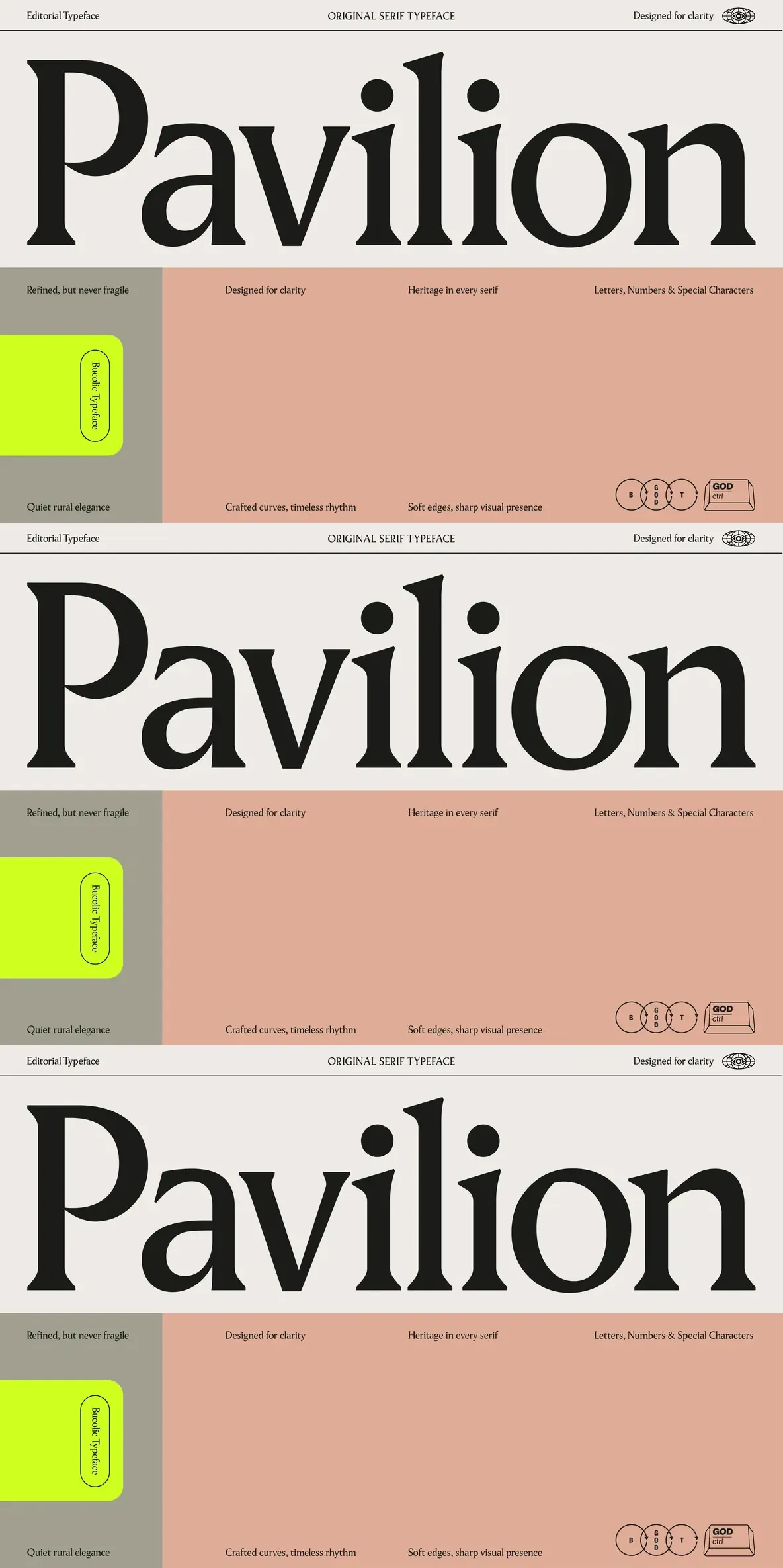
Pavilion: Serif poise for modern pages
Designed by God Control, Pavilion brings a balanced mix of classic sophistication and contemporary flair. Each curve and cut follows a steady rhythm that supports readability in long-form text, while still carrying enough energy for titles and headlines.
The lowercase letters show gentle curves, careful spacing, and an ideal x-height for smooth reading. Each character is built for consistent flow. The uppercase letters read strong and bold, yet keep a measured delicacy that suits editorial layouts and brand-forward typography.
Versatile for both body text and headlines
Perfect for magazines, packaging, and digital applications
Smooth readability with energetic impact